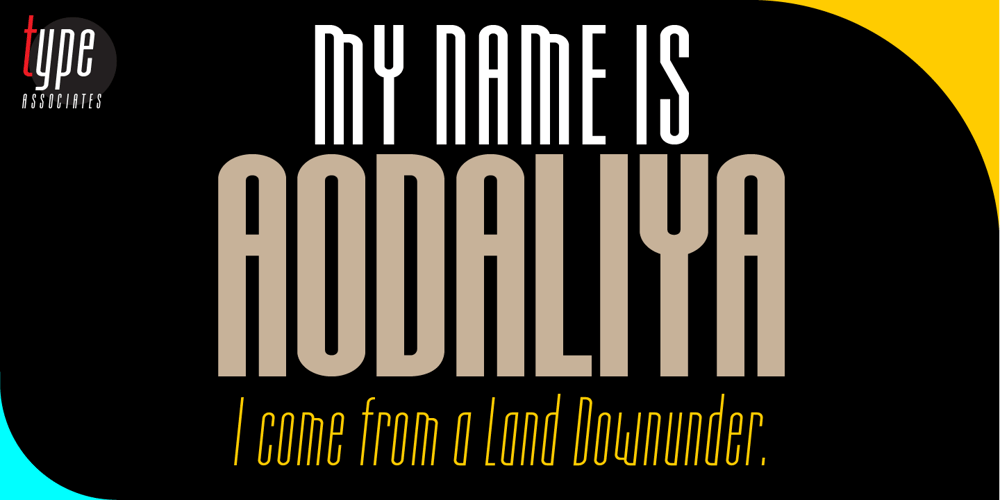
Aodaliya Font Family was designed by Russell Bean and published by Type Associates. Aodaliya contains 16 styles and family package options. As a practicing graphic designer there have been numerous occasions when I have needed a font that didn’t exist. More often than not the style I was looking for was described as an extra-condensed sans-serif with a contemporary look that was available in a variety of weights. Small caps would be useful, so would a range of numeral styles. And matching italics too, of course. The proportions would consider viewing on hand-held devices, cell phones, remote controllers. And not forgetting that the font would be used in situations which required stacking the lines close. So the overshoots needed to be eliminated – the exaggeration of extremities that are intended to avoid round characters appearing smaller than their more squarish counterparts, often colliding when linespacing is tight. As I refined the design, I tested it on several works-in-progress providing a valuable testing ground and proving popular with my clients.